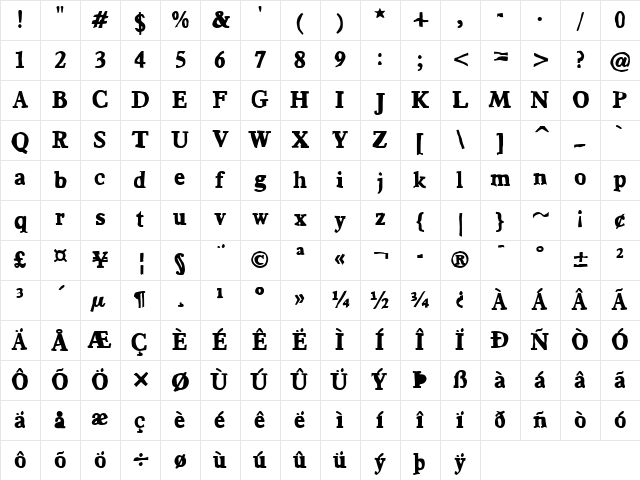
Bountiful Bold Free Font
Bountiful Bold
Design Context for Bountiful
Bountiful is a composed and adaptable typeface that performs quietly and consistently across a wide range of design contexts. Its bold stroke weight gives it real presence on the page.